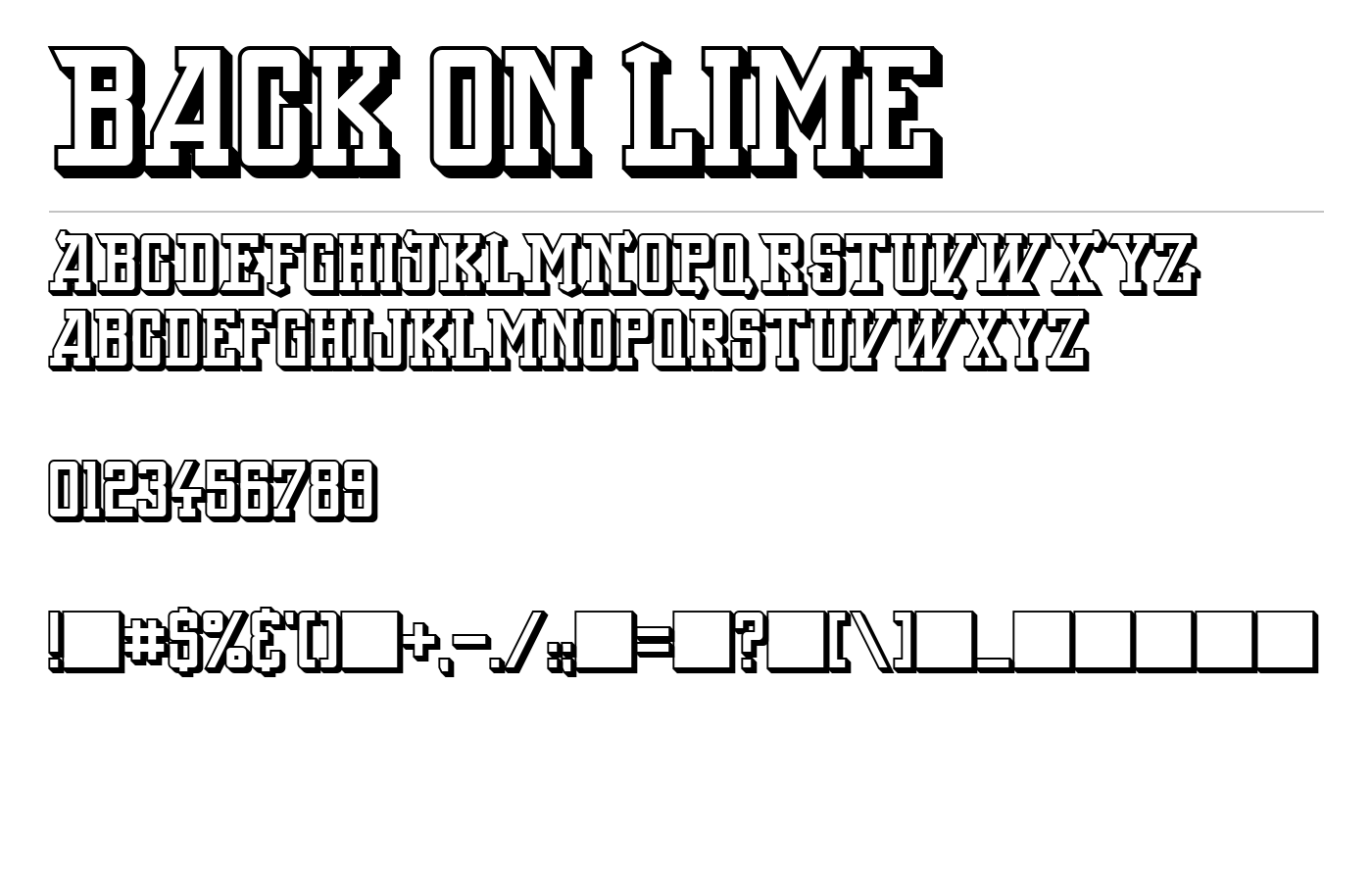
Back On Lime is a bold, condensed slab serif font with a strong, vintage western feel. Its thick, blocky letterforms feature dramatic shading and sharp corners that give it a rugged and striking presence, making it ideal for attention-grabbing headlines, posters, and branding that seeks a retro or bold aesthetic. This font works best in display settings where its distinctive character can stand out and make an impact.
Back On Lime Font
About Back On Lime Font